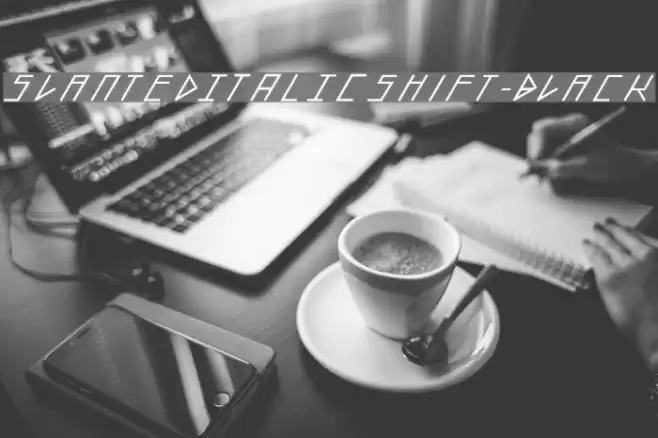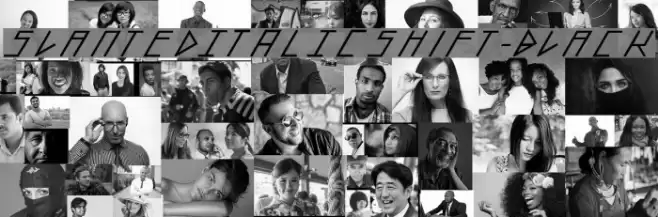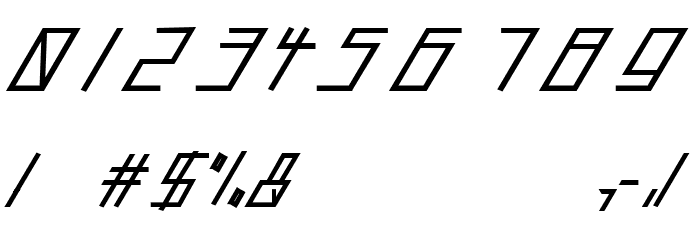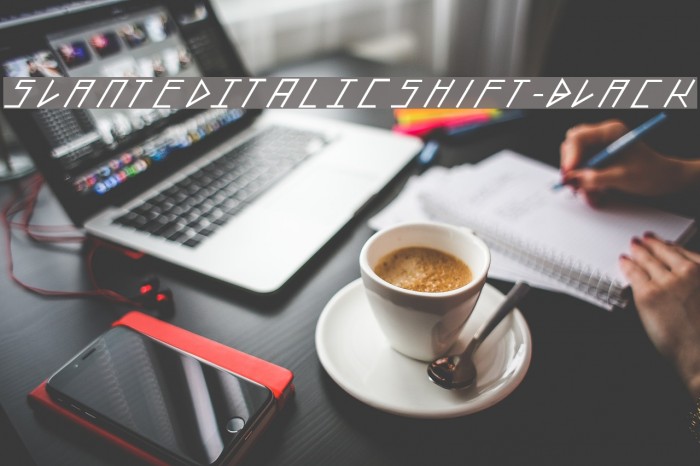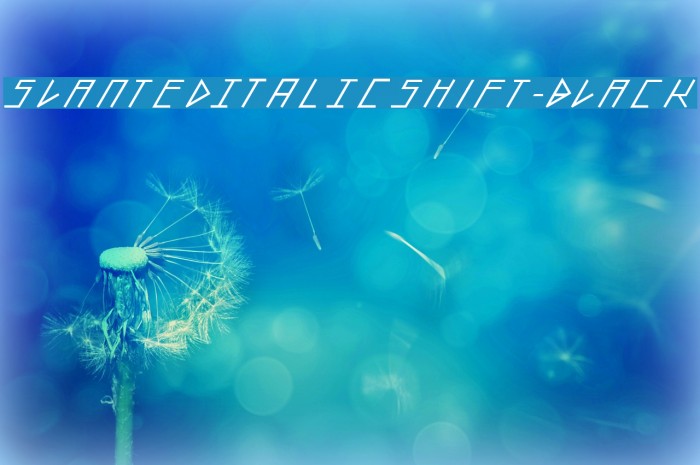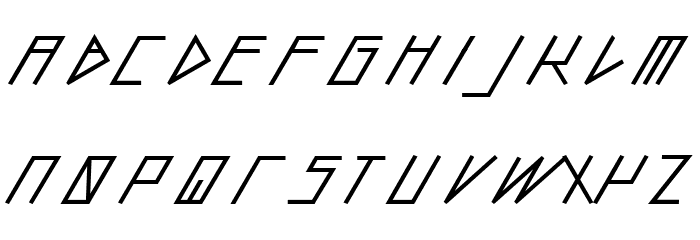
slantedITALICshift-Black Font
slantedITALICshift-Black Description
This font features a distinct, angular design with a slanted, italicized style that gives it a dynamic and modern appearance. The characters are composed of straight lines and sharp angles, creating a futuristic and geometric look. The uppercase and lowercase letters maintain a consistent style, with the lowercase letters mirroring the uppercase in form but reduced in size. Numerals follow the same angular design, ensuring uniformity across the character set. Special characters are also designed with the same sharp, linear aesthetic, making this font suitable for projects that require a bold and striking visual impact.
A slanted, angular font with a modern, geometric style from Uncategorized fonts.
- Proposed Projects: Ideal for tech branding, futuristic designs, video game interfaces, and modern advertising.
- Overall Style: Futuristic, Geometric